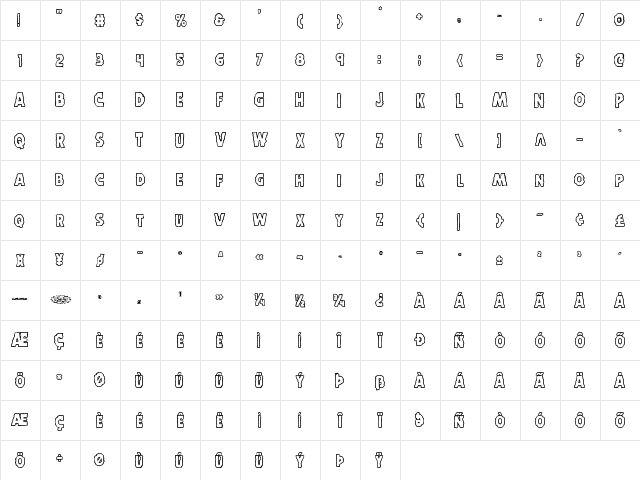
Horroween Outline Outline
Design Context for Horroween Outline Typeface
Horroween Outline brings ornamental detail and strong personality to headlines and identities, where visual impact matters more than quiet functionality.
Font Pairing: Pair with a clean neutral sans-serif for body copy to let Horroween Outline's character lead without overwhelming the composition.
Pro Tip: Treat Horroween Outline as the centrepiece of your typographic hierarchy. One strong heading set in a decorative face can carry an entire layout.